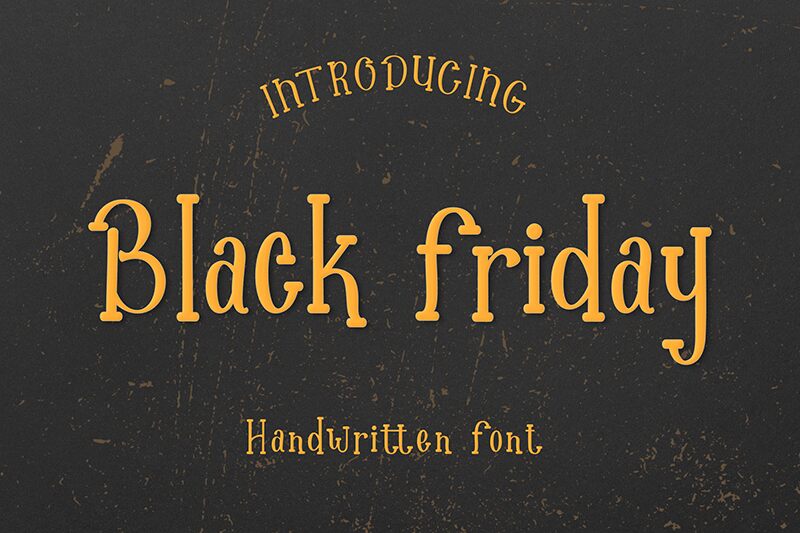
Blackfriday
Black Friday, the lively and playful display font designed by Amarlettering - Takiy is perfect for adding a touch of whimsy to any project. Its semi-light weight and semi-condensed width make it ideal for eye-catching headlines, logos, and posters. The cartoon style is versatile enough to suit a wide range of creative projects, from children's books to food packaging. Make your designs stand out with this fun and quirky typeface that's sure to capture attention. Bring some cheer into your next project with Black Friday – the perfect font choice for anyone looking to add some personality and charm!